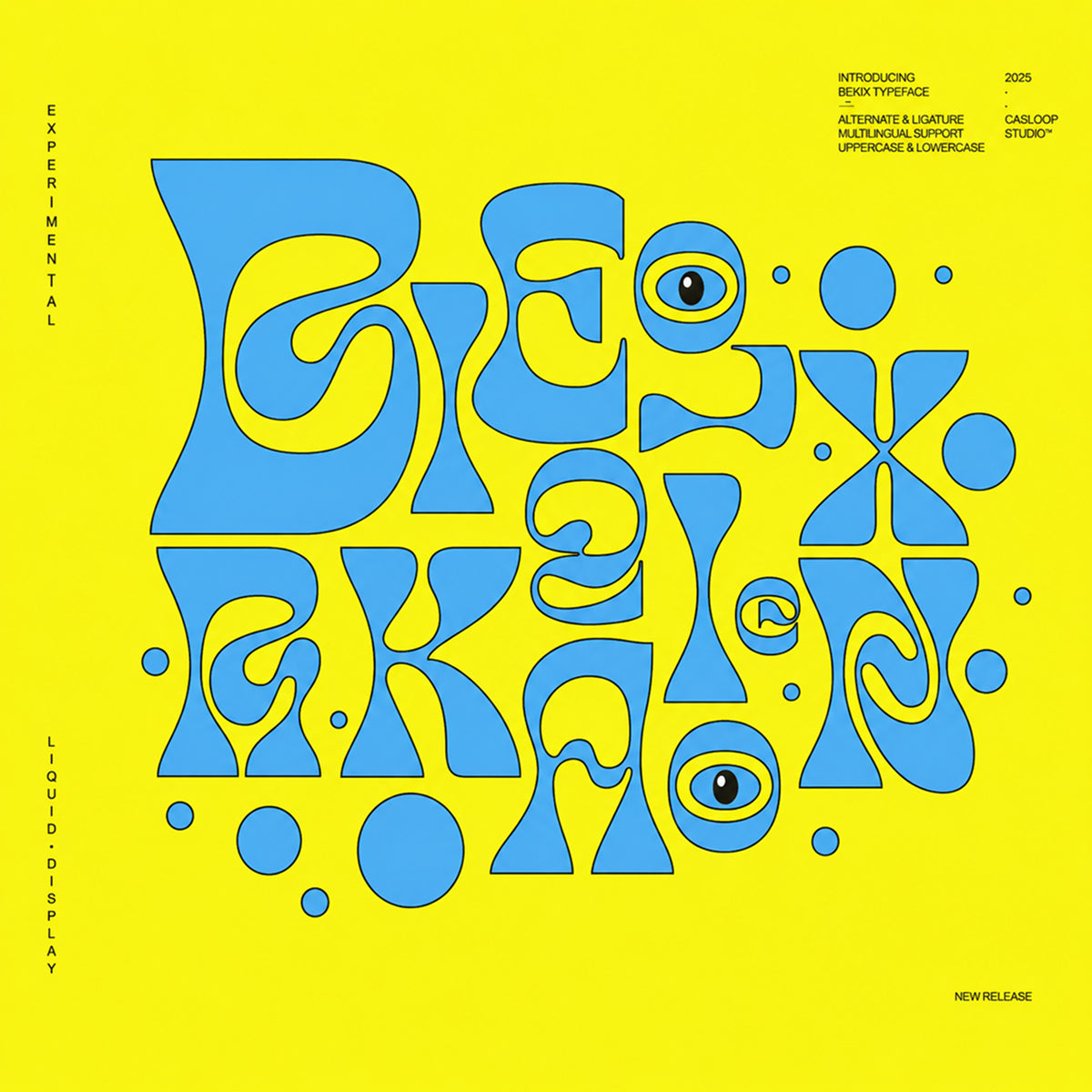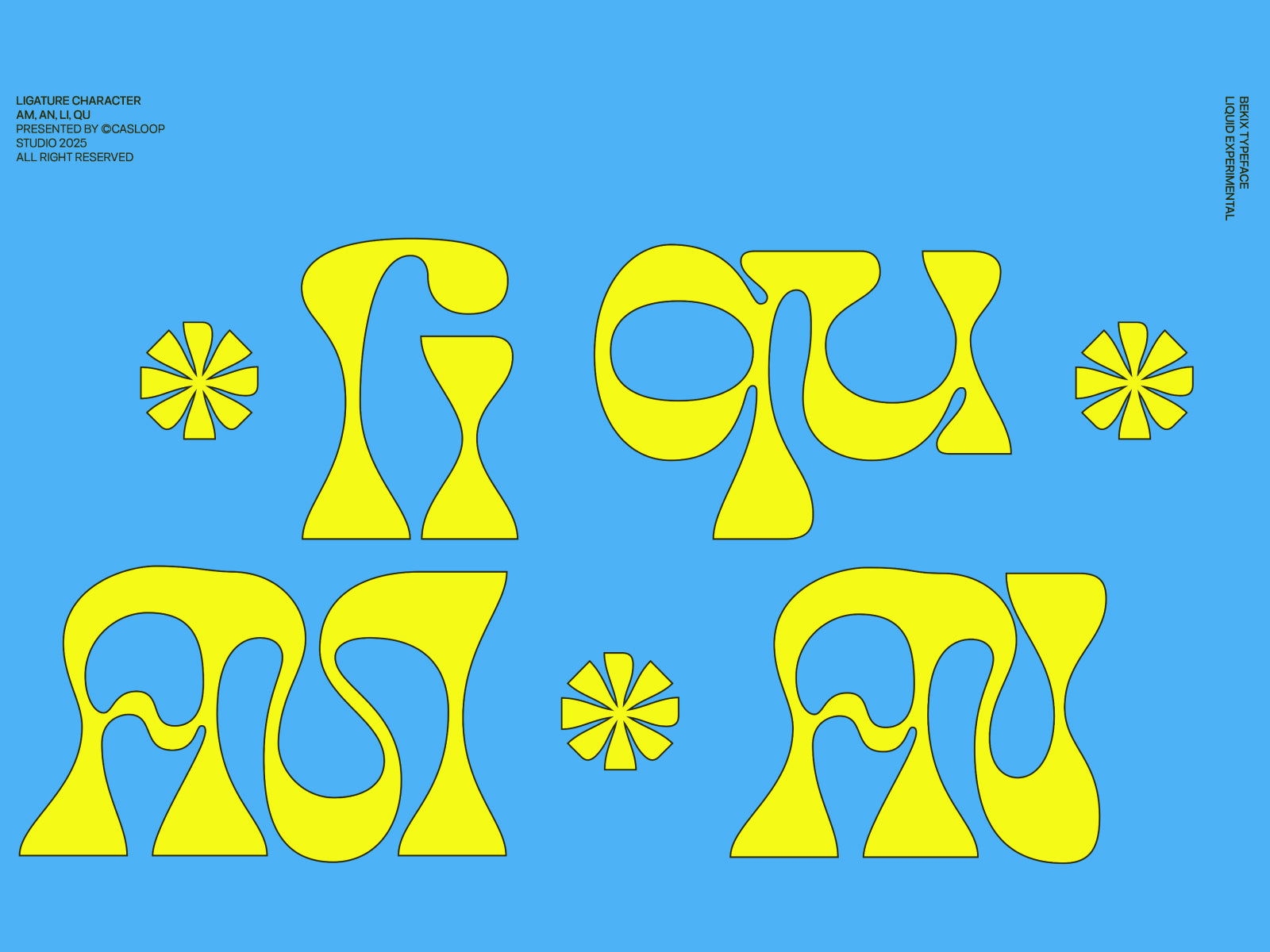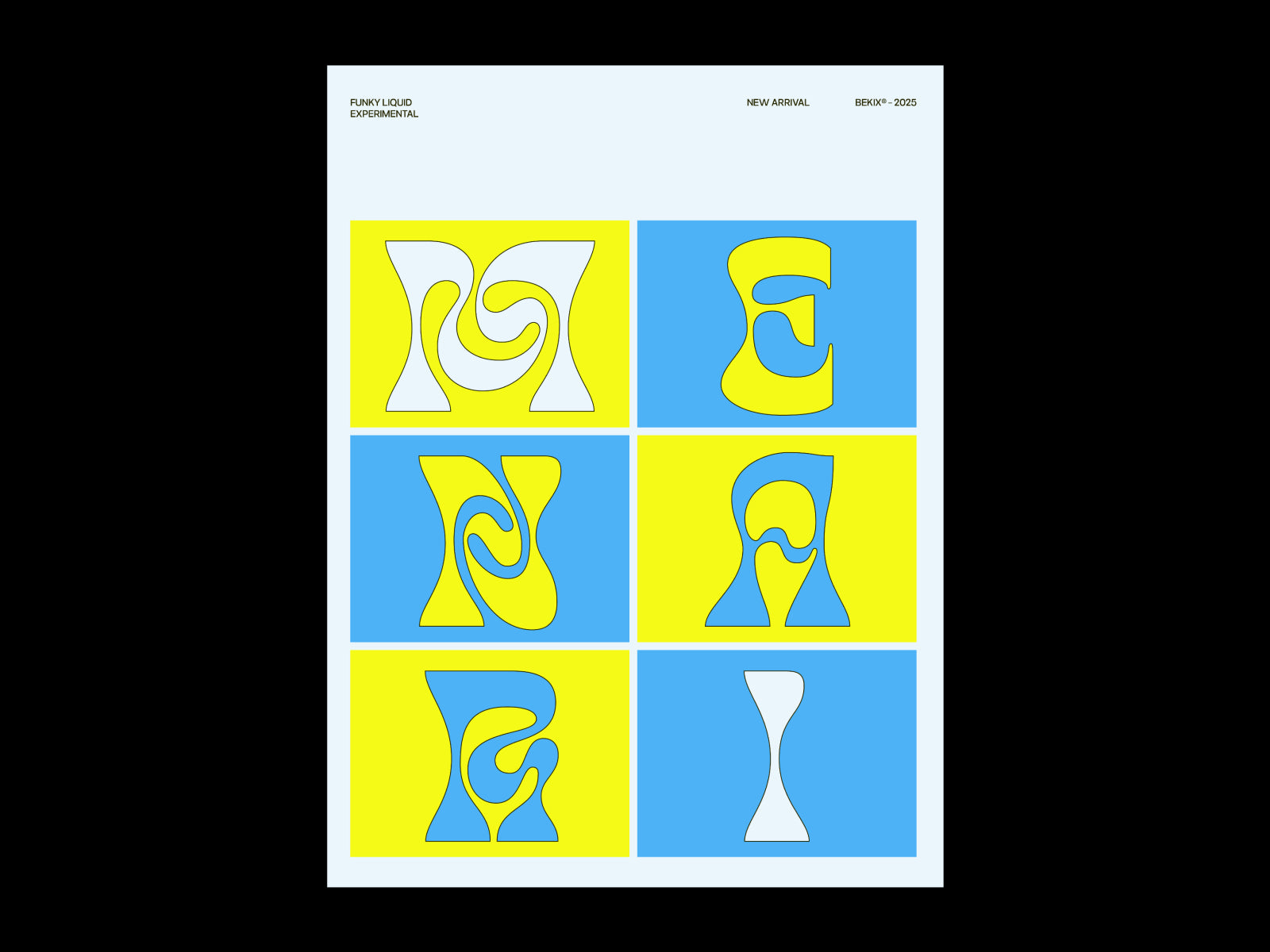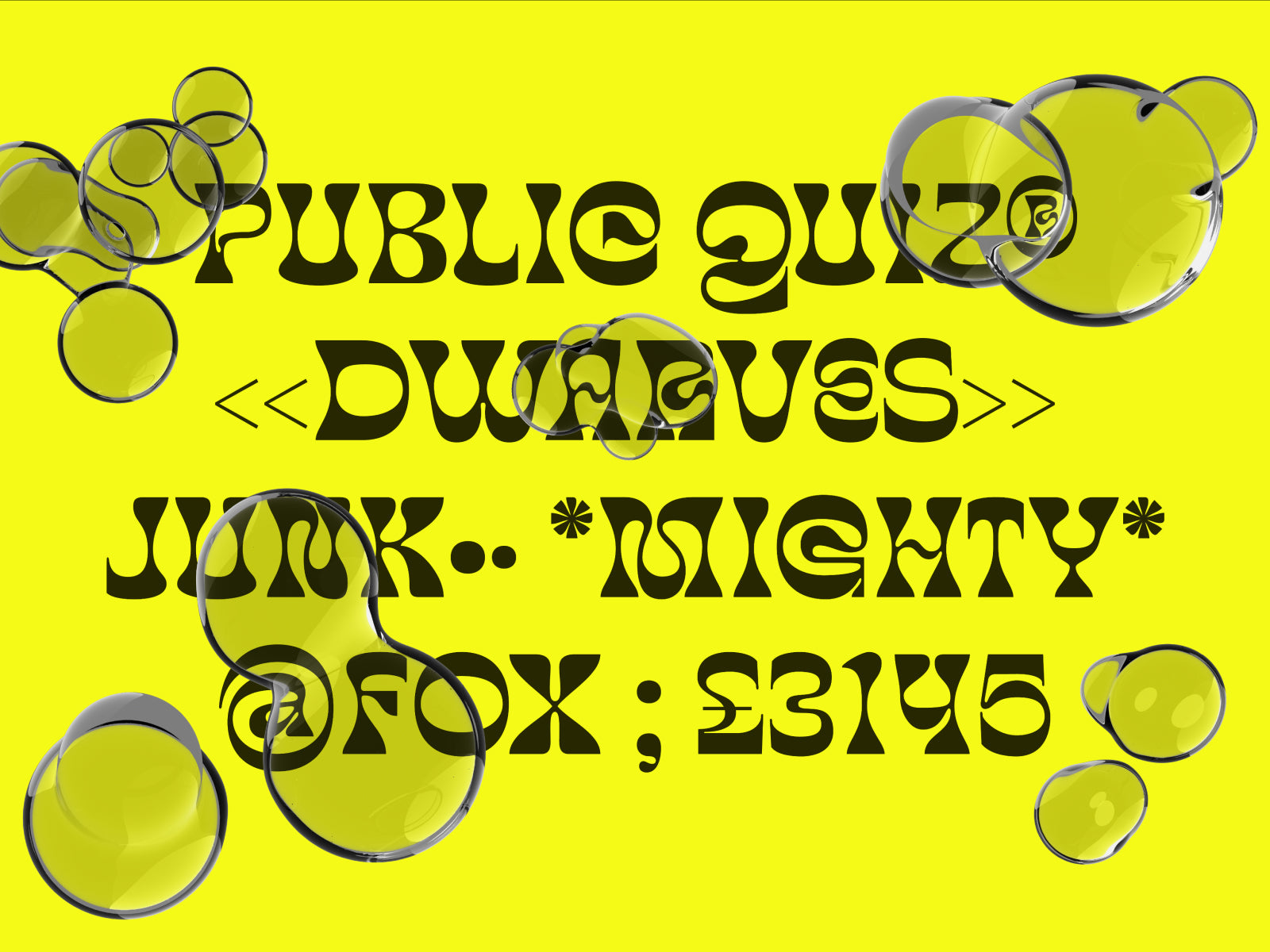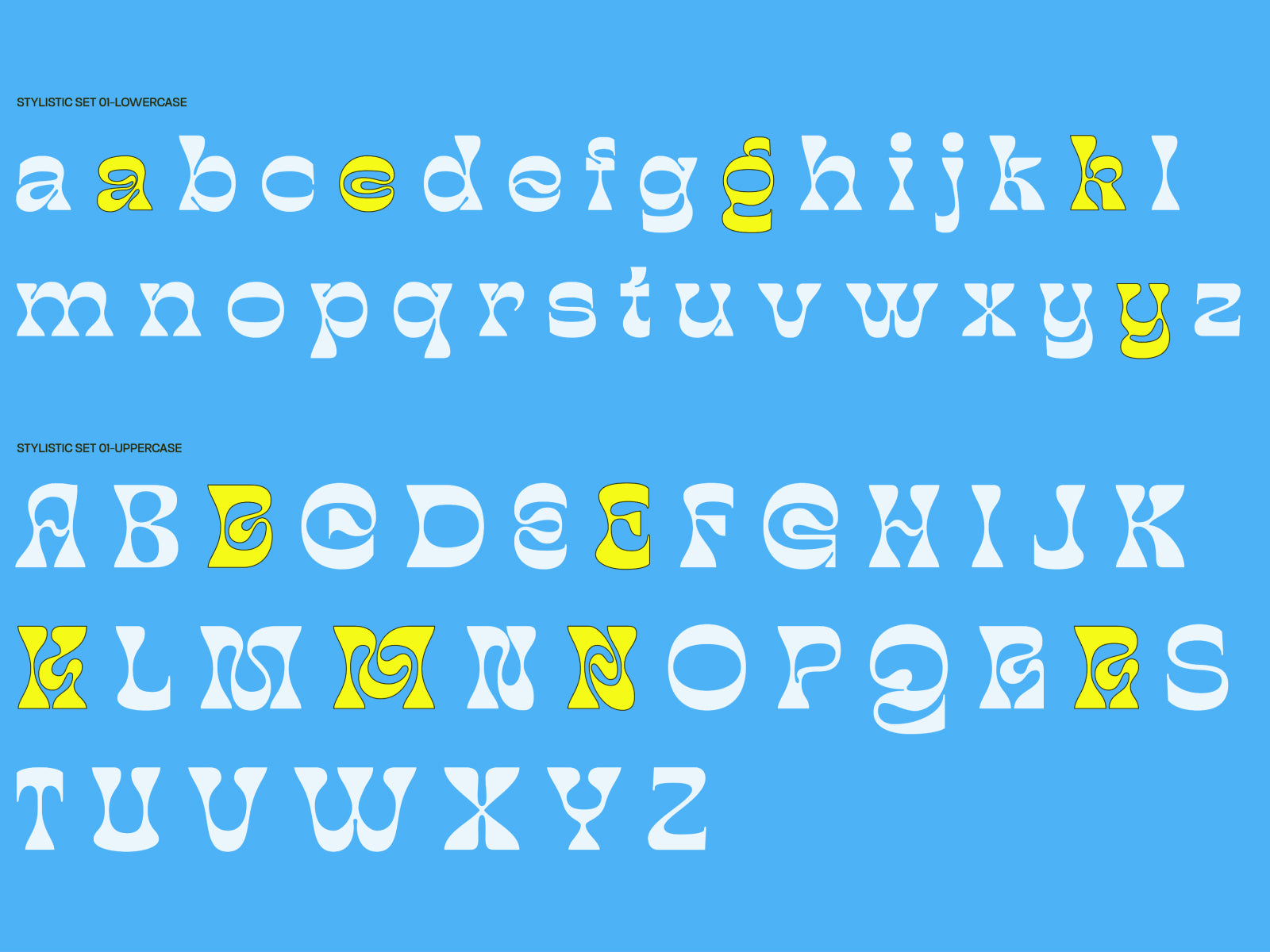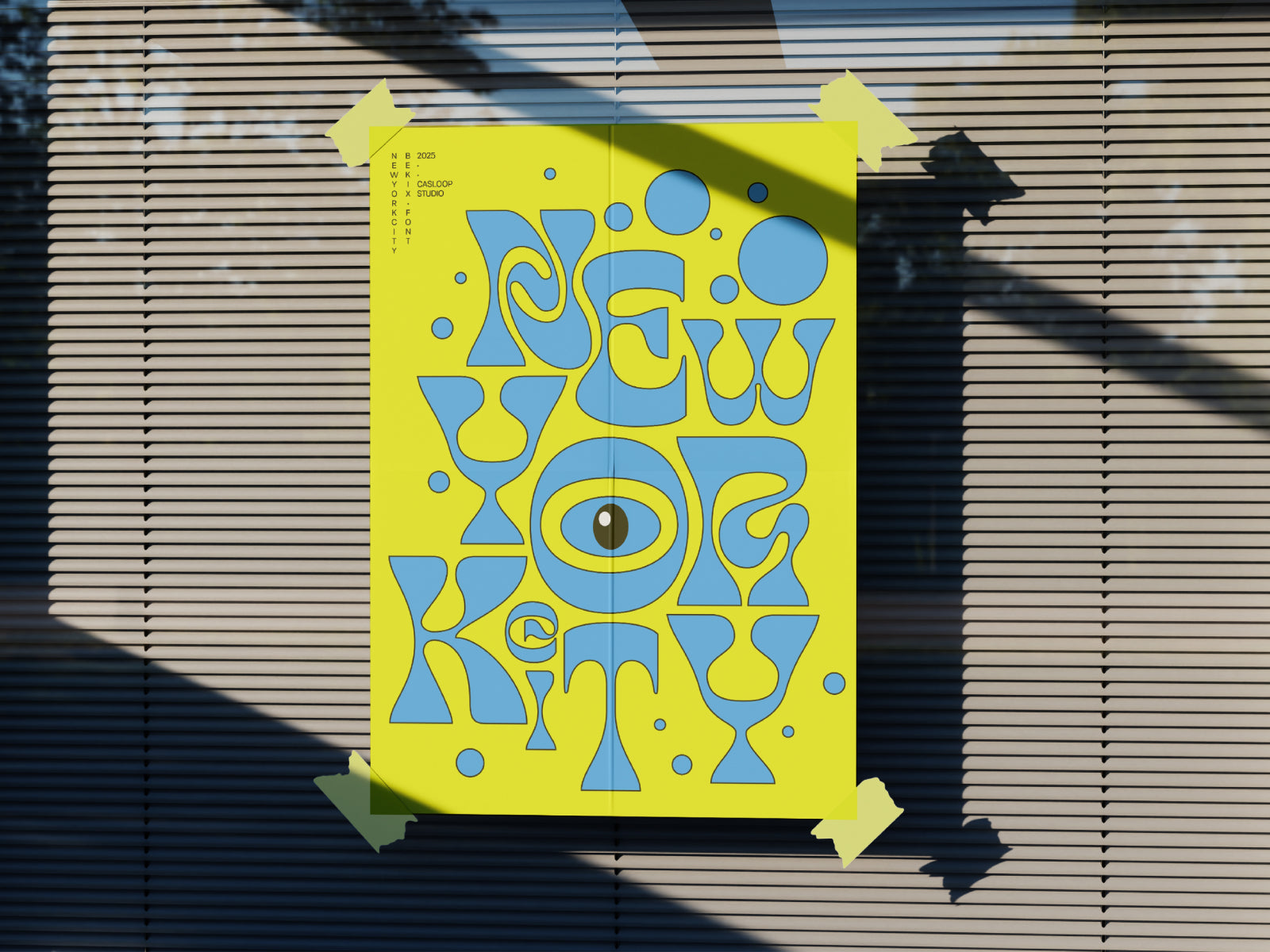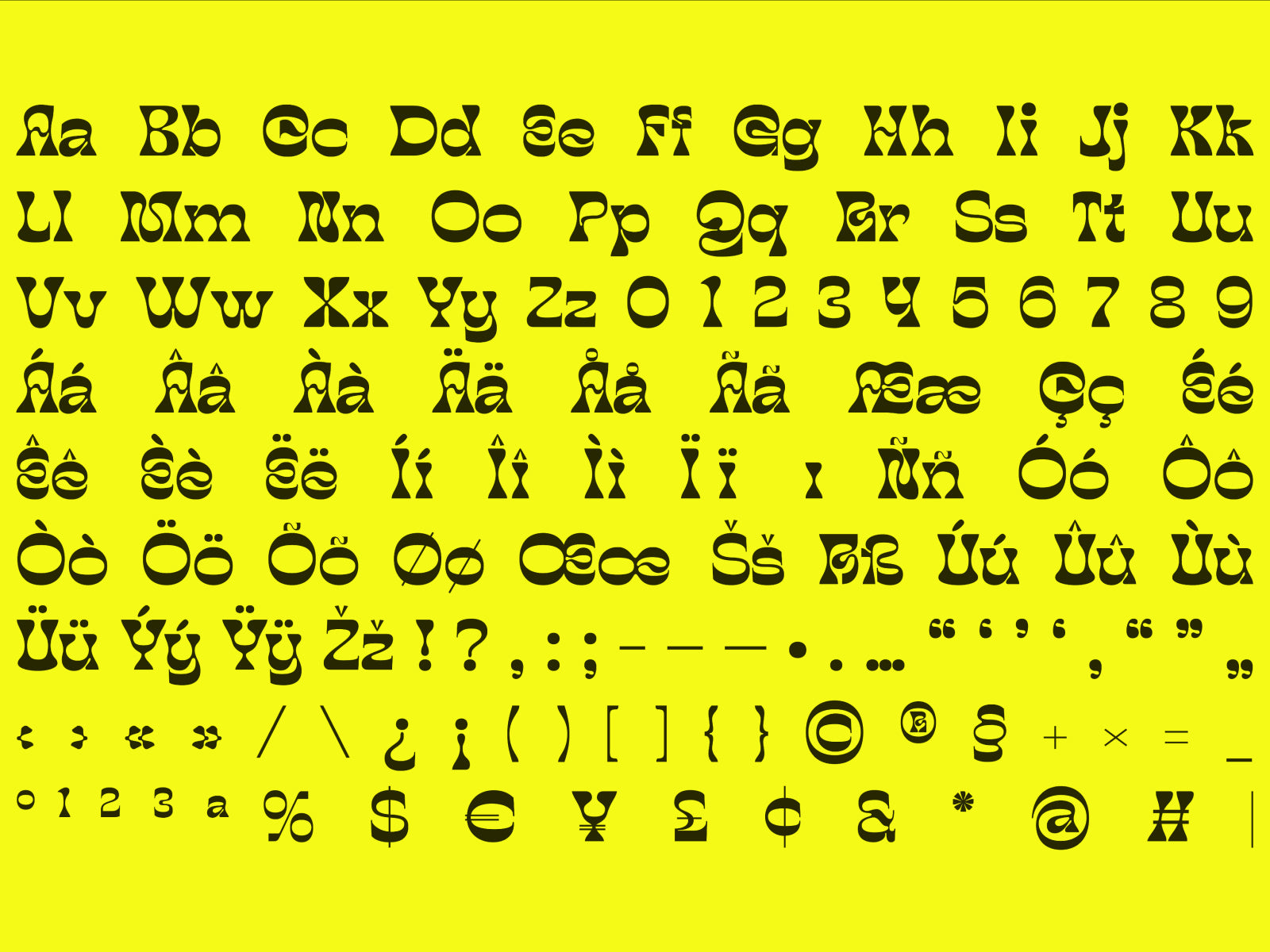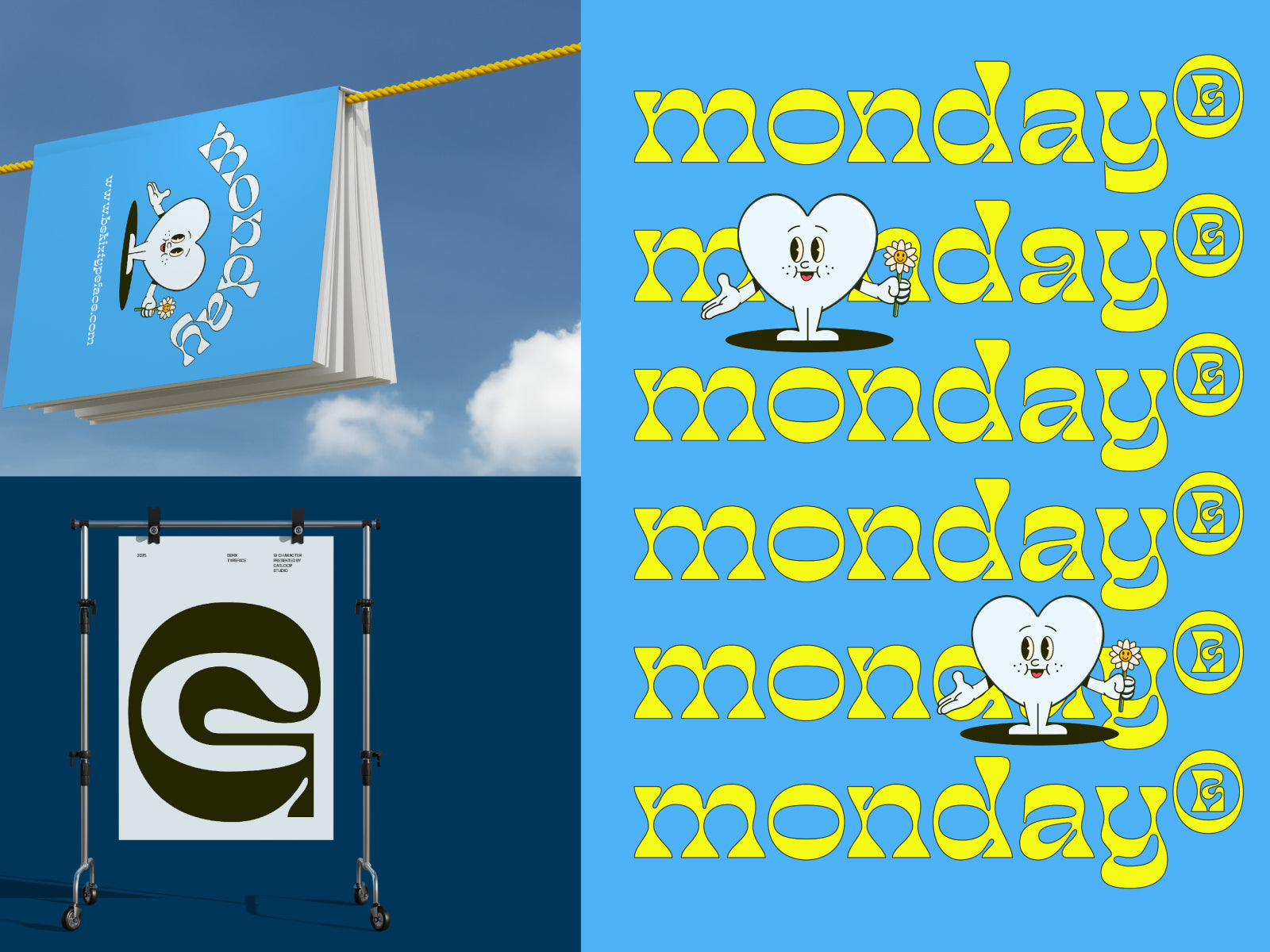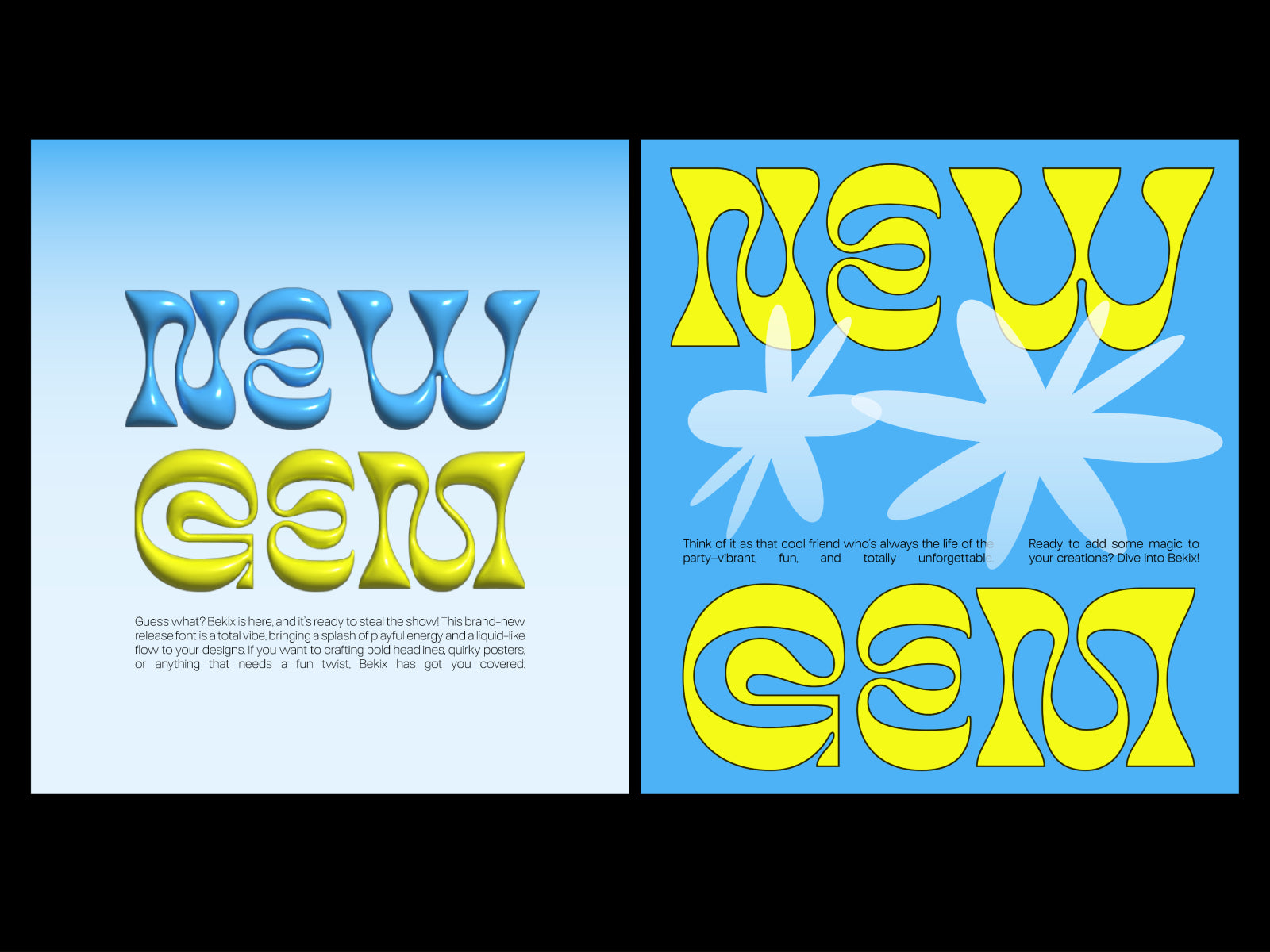
Bekix - Funky Liquid Font
Bekix Typeface — The Funky, Liquid-Inspired Display Font Bekix is a bold and experimental display typeface designed for creatives who dare to be different. Perfect for eye-catching branding, playful posters, and vibrant social media content, Bekix exudes personality with its retro-inspired, liquid-like letterforms. This typeface effortlessly balances funky energy with contemporary charm, making it a must-have for bold design projects.
Features of Bekix Typeface -Playful Alternates and Ligatures: With stylistic alternates and custom ligatures, Bekix gives you the creative flexibility to make your designs truly unique. -Retro Meets Modern: Inspired by vintage aesthetics but with a contemporary edge, Bekix is perfect for projects that need a bold, trendy vibe. -Multilingual Support: Bekix supports a wide range of languages, including accented characters, making it suitable for global audiences. -Versatile Formats: Available in OTF, TTF, WOFF, and WOFF2 formats for seamless use across all design platforms. -Attention-Grabbing Shapes: Its bold, wavy letterforms make Bekix the perfect choice for high-impact headlines and artistic designs. -File Includes (.otf, .ttf, .woff, .woff2)
Applications -Branding: Bekix’s bold and playful aesthetic makes it a standout choice for logos, packaging, and identity design. -Posters & Event Graphics: Create vibrant and energetic visuals for events, music festivals, and campaigns. -Social Media Content: Add funky vibes to your posts and make your content impossible to scroll past. -Editorial Design: Bring a retro, artistic touch to magazine spreads, zines, and more.
Bekix is a bold display typeface featuring liquid-inspired letterforms that combine retro aesthetics with a contemporary edge. It includes playful alternates and ligatures, supports multiple languages, and is available in OTF, TTF, WOFF, and WOFF2 formats.